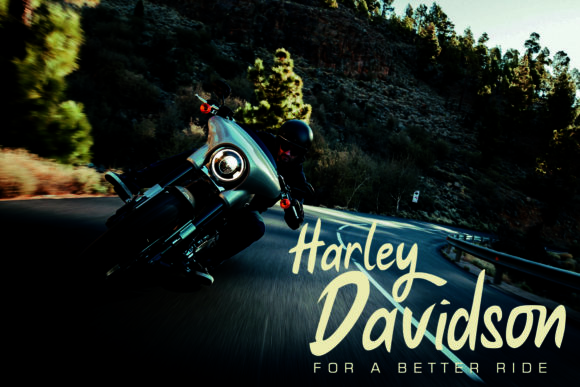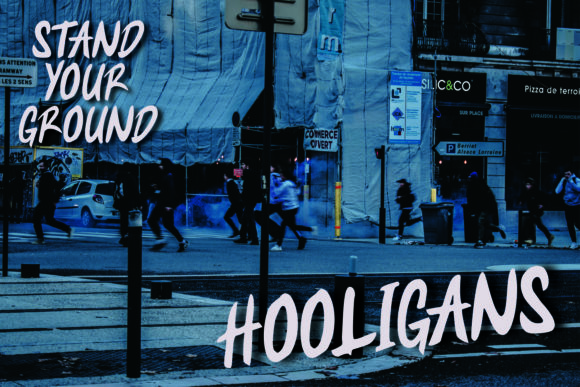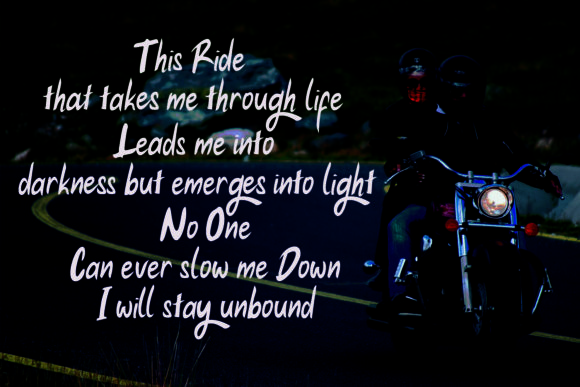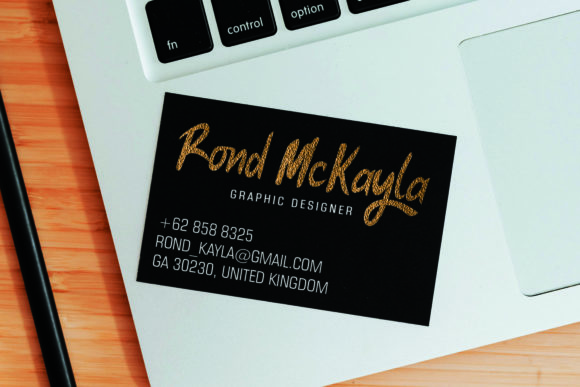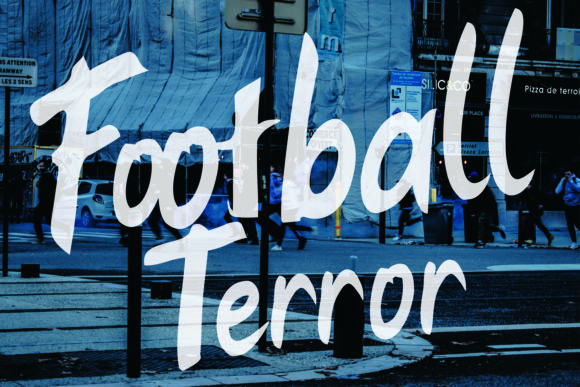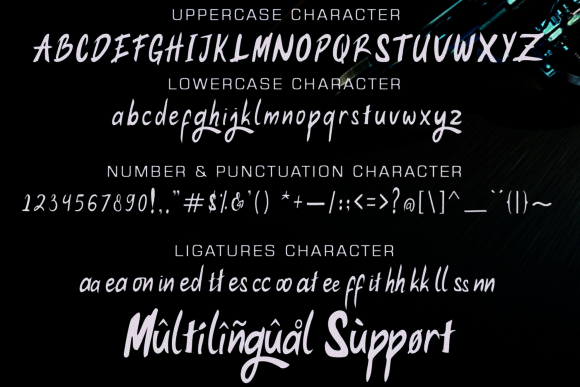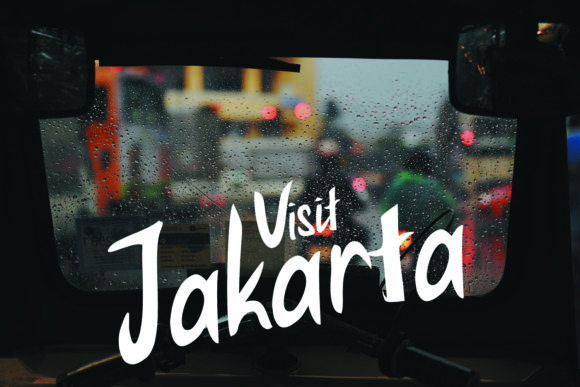
Riding for Monday Font
About Riding for Monday Font
Riding For Monday is a neat, bold and cursive handwritten font. Stylish and strong lettered, this font will make each of your designs stand out.